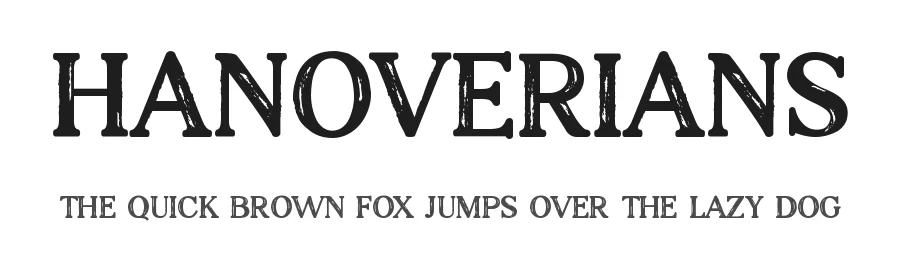
About Retro British Font
Retro British by Nirmana Visual,
Retro British Specifications
| Glyph Count | 373 glyphs |
| Designer | Sigit Dwipa Raharjo |
- Stylistic sets (6)
Retro British Font is a decorative font that shines as a display or heading face. Pair it with a clean sans-serif or serif font for body text β the contrast creates a clear hierarchy while the two styles stay balanced and easy to read.